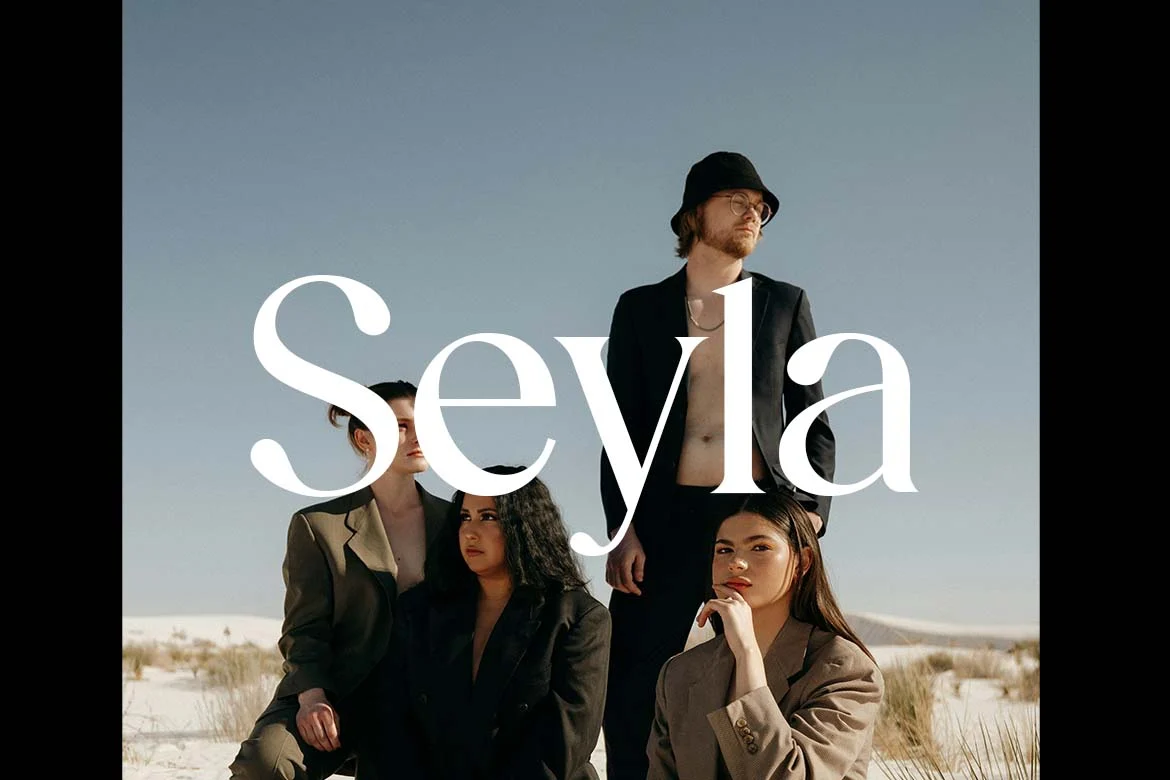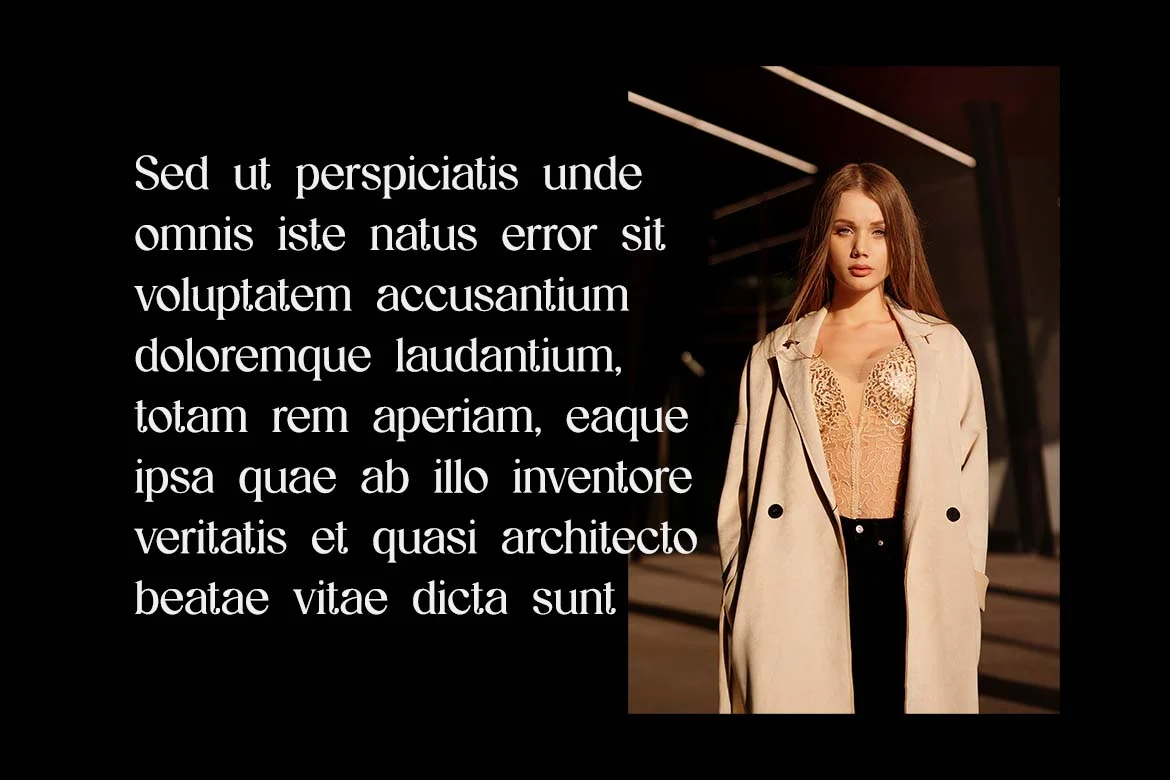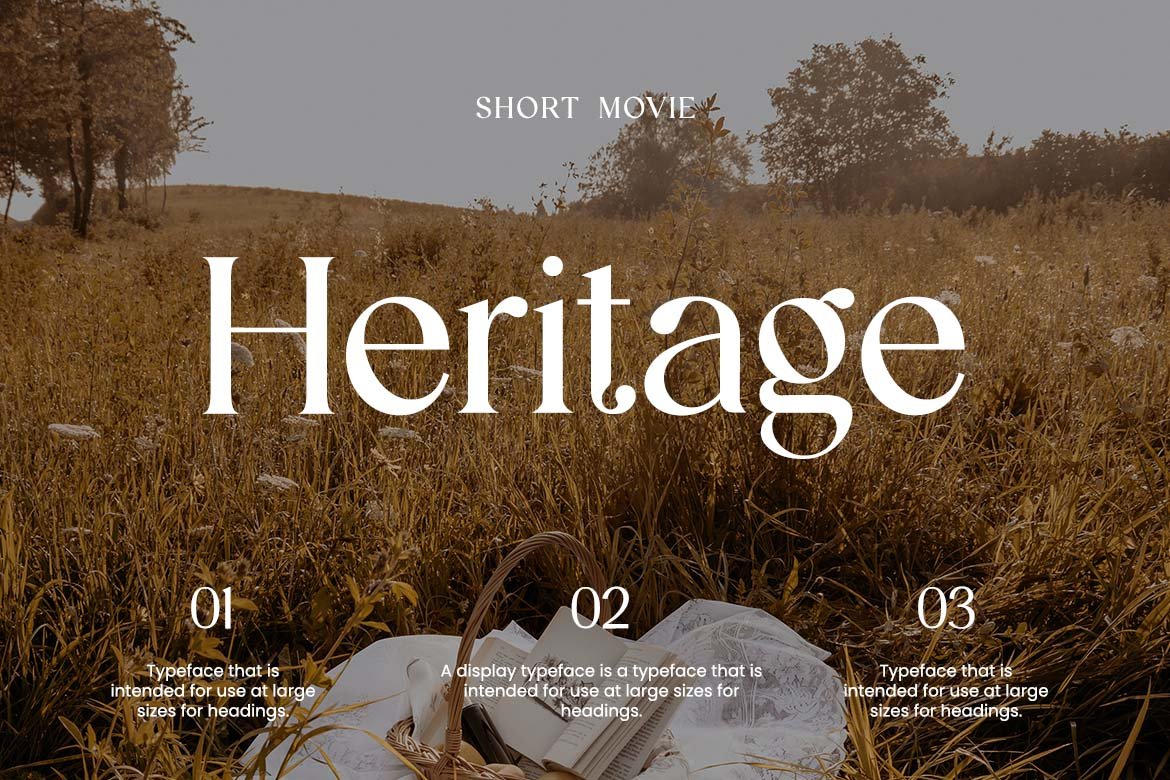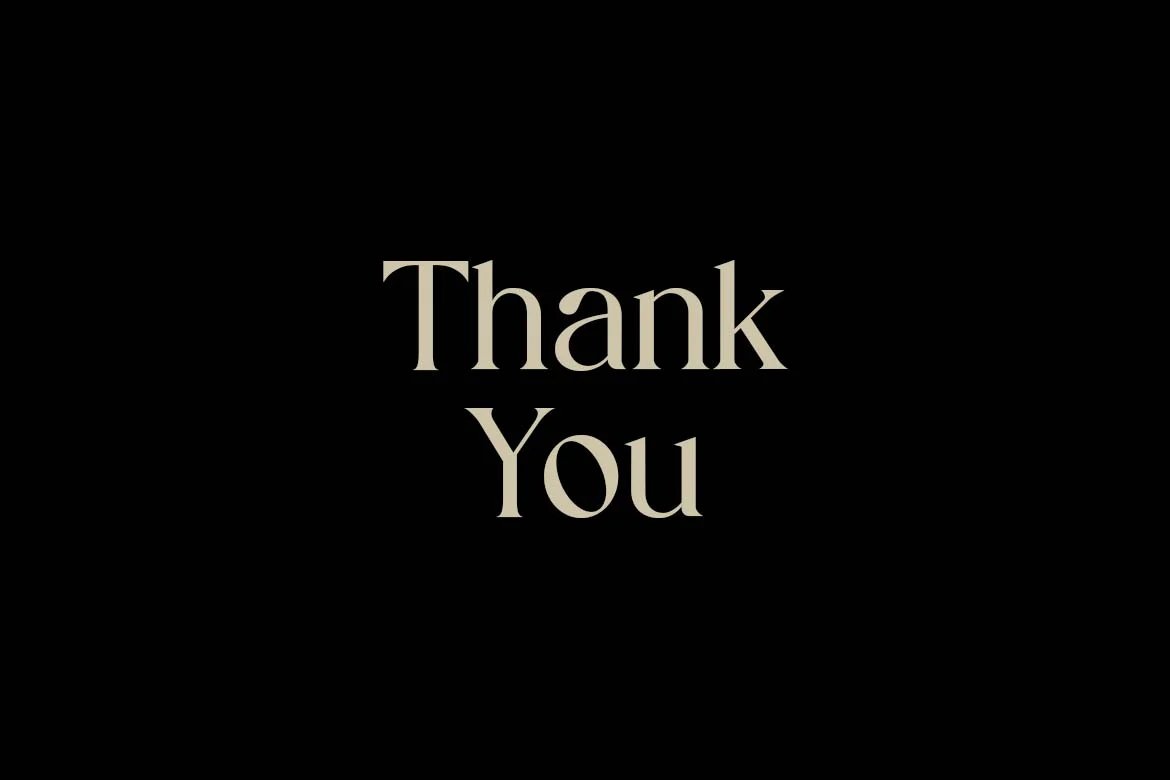
Reanointe Modern Magazine Font
Introducing our new product the name is Reanointe Serif Display. Reanointe Serif Display that feels beautiful classy, elegant, and modern. This font is ideally suited for a wide variety of projects, such as signature, stationery, logo, wedding, typography quotes, magazine or book covers, website headers, clothing, branding, packaging design, and more. Also, fashion-related branding or editorial design displays both masculine and feminine qualities.